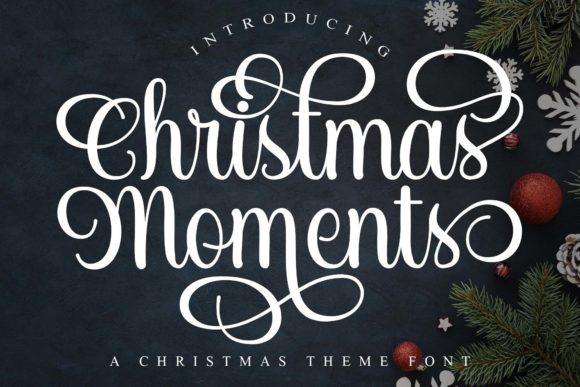
Are you ready to add a touch of elegance and charm to your holiday projects? Look no further than Christmas Moments Font, the perfect choice for your festive designs! Created by the talented designers at Doehantz Studio, this exquisite script font will make your holiday letters truly unforgettable.
Christmas Moments Font is more than just a typeface – it's a work of art. With its romantic and sweet calligraphy style, each character dances gracefully along the baseline, creating a beautiful and whimsical effect. Whether you're designing Christmas cards, party invitations, or gift tags, this font will effortlessly add a touch of luxury and sophistication.
One of the standout features of Christmas Moments Font is its extensive selection of glyphs and ligatures. Thanks to its PUA encoding, accessing these amazing design elements is a breeze! Let your creativity shine as you explore the various options available, allowing you to customize your designs and make them truly unique.
Capture the joyful spirit of the holiday season with Christmas Moments Font. Its elegant curves and graceful strokes evoke feelings of warmth and happiness, making it the perfect choice for spreading holiday cheer. Whether you're writing heartfelt messages to loved ones or creating stunning visuals for your online store, this font will ensure your words and designs leave a lasting impression.
Imagine the delight on your recipients' faces as they receive a beautifully crafted holiday letter, featuring the Best Font For Holiday Letter – Christmas Moments Font. The combination of its eye-catching design and emotional appeal will captivate their hearts and remind them of the magic that surrounds this special time of year.
Unlock the full potential of your holiday designs with Christmas Moments Font. Its versatility allows it to shine in various contexts, from elegant wedding invitations to whimsical Christmas banners. No matter the project, this font will elevate your designs and make them truly stand out from the crowd.